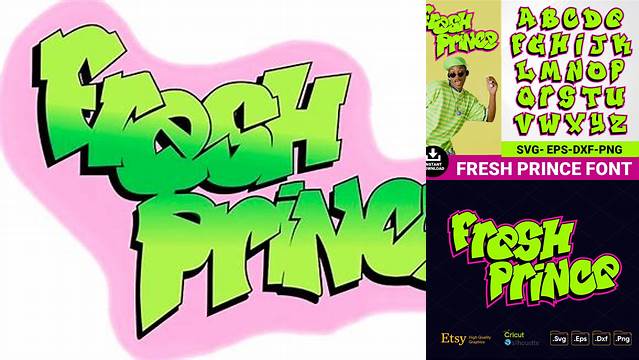
Fresh Prince Font: Free Options And Design Guide
Are you a fan of the iconic 90s sitcom, The Fresh Prince of Bel-Air? Or perhaps you're a design enthusiast searching for that perfect font to capture a retro, urban vibe? If so, you've likely stumbled upon the Fresh Prince font, a typeface that embodies the show's energetic and playful spirit. But what exactly is the Fresh Prince font, and how can you use it in your projects? Let's dive into the details, exploring its history, characteristics, and the best ways to incorporate it into your designs.
Understanding the Fresh Prince Font
When we talk about the Fresh Prince font, it's important to clarify that there isn't one single, officially licensed font used throughout the show's branding. Instead, the visual identity of The Fresh Prince of Bel-Air drew upon a combination of typographic styles, primarily leaning towards a bold, graffiti-inspired aesthetic. The opening credits, for instance, feature hand-drawn lettering and vibrant colors, evoking the street art culture of Philadelphia, where Will Smith's character originates. This hand-drawn feel is a key element that many designers aim to replicate when seeking a Fresh Prince-style font.
The challenge lies in finding a font that accurately captures this essence. While there's no exact match, several fonts come close, offering a similar visual impact. These fonts often share characteristics like: a bold weight, a slightly distressed or textured appearance, and a dynamic, almost handwritten quality. Some may incorporate elements of urban art, such as splatters, drips, or uneven lines, further enhancing the connection to the show's theme. To truly understand the impact of the Fresh Prince font, it's helpful to consider the context of the show itself. The Fresh Prince of Bel-Air was a groundbreaking sitcom that blended humor with social commentary, exploring themes of race, class, and family in a relatable way. The show's visual identity played a crucial role in conveying its message, using bold graphics and vibrant colors to create a sense of energy and optimism. The font, in particular, contributed to this overall aesthetic, projecting a sense of urban cool and youthful exuberance. So, when you're choosing a font to emulate the Fresh Prince style, you're not just selecting a typeface; you're tapping into a cultural legacy. You're channeling the spirit of a show that resonated with millions and continues to influence popular culture today. Therefore, it's essential to consider the message you want to convey and how the font can help you achieve that goal. Whether you're designing a logo, creating promotional materials, or simply adding a touch of retro flair to your project, the right Fresh Prince-inspired font can make all the difference. Remember, the key is to capture the essence of the show – its boldness, its energy, and its unmistakable urban vibe.
Key Characteristics of Fonts Similar to the Fresh Prince Style
When searching for fonts similar to the one used in The Fresh Prince of Bel-Air, several key characteristics stand out. These characteristics help to define the overall aesthetic and ensure that the font captures the essence of the show's visual identity. Let's explore these key features in more detail. First and foremost, boldness is a defining trait. The Fresh Prince font is not subtle or understated; it demands attention. Think thick, impactful strokes that command the viewer's gaze. This boldness reflects the show's confident and energetic tone, making it a crucial element to consider when choosing a font. The use of a bold font weight immediately conveys a sense of strength and presence, ensuring that your message stands out. Imagine the title sequence flashing across the screen – the font is not timid; it's assertive and full of life. This is the feeling you want to replicate. Secondly, a textured or distressed appearance is often present in fonts that evoke the Fresh Prince style. This texture can range from subtle graininess to more pronounced imperfections, giving the font a slightly weathered or hand-drawn feel. This characteristic is essential for capturing the urban, street art vibe associated with the show's opening credits and overall visual design. A perfectly clean and pristine font might feel too polished and lack the raw energy that the Fresh Prince font embodies. Think of graffiti art – it's rarely flawless; it has a certain roughness and authenticity. This is the same feeling that a textured font can bring to your design. Thirdly, a dynamic or handwritten quality is a key aspect to consider. While the show didn't use a purely handwritten font, the lettering in the opening credits has a fluid, almost calligraphic quality. Fonts that mimic this handwritten feel can add a touch of personality and authenticity to your design, making it feel less generic and more unique. Look for fonts with slightly irregular letterforms or a natural flow to the strokes. This can help to create a sense of movement and energy, which is crucial for capturing the spirit of The Fresh Prince of Bel-Air. The handwritten quality also adds a touch of warmth and approachability, making the font feel more personal and engaging. Beyond these core characteristics, some fonts may also incorporate urban art elements, such as splatters, drips, or uneven lines. These elements can further enhance the connection to the show's urban roots, adding a layer of visual interest and complexity. However, it's important to use these elements judiciously, as too many can make the font feel cluttered or overwhelming. The key is to strike a balance between authenticity and readability. In summary, when searching for fonts similar to the Fresh Prince style, focus on boldness, texture, a dynamic quality, and potentially some urban art elements. By considering these characteristics, you can find a font that effectively captures the essence of the show and adds a touch of retro flair to your design projects.
Where to Find Fresh Prince-Inspired Fonts
Finding the perfect font to capture the Fresh Prince vibe can feel like a quest, but fear not! There are numerous resources available, both online and offline, that can help you track down that ideal typeface. Let's explore some of the most popular and effective avenues for discovering Fresh Prince-inspired fonts. One of the most accessible and widely used resources is online font marketplaces. Websites like DaFont, FontSpace, MyFonts, and Adobe Fonts offer vast libraries of fonts, including many that fit the Fresh Prince aesthetic. These platforms allow you to search by keywords (such as "bold", "urban", "graffiti", or "retro"), filter by style (e.g., script, display, sans-serif), and even preview the fonts with your own text. The ability to preview is particularly helpful, as it allows you to see how the font will look in context before you commit to downloading or purchasing it. DaFont and FontSpace are excellent resources for free fonts, while MyFonts and Adobe Fonts tend to offer a wider selection of premium options. When browsing these marketplaces, it's helpful to keep the key characteristics of the Fresh Prince font in mind – boldness, texture, and a dynamic quality. Look for fonts that embody these traits, and don't be afraid to experiment with different options until you find the perfect fit. Another valuable resource is design blogs and articles. Many graphic design blogs regularly feature font roundups and recommendations, often highlighting typefaces that are suitable for specific projects or styles. Searching for articles related to retro fonts, urban fonts, or fonts similar to graffiti can lead you to some hidden gems. These blogs often provide detailed descriptions of the fonts, including their history, characteristics, and potential uses. They may also offer links to the font's download page or the designer's website. In addition to online resources, font identification tools can be incredibly useful. If you have an image of the Fresh Prince font (or a similar typeface) that you want to identify, you can use a font identification tool like WhatTheFont or Font Matcherator to analyze the image and suggest potential matches. These tools work by comparing the letterforms in the image to a database of fonts, providing a list of the most likely candidates. While these tools may not always be able to identify the exact font used in The Fresh Prince of Bel-Air, they can certainly help you narrow down your search and discover fonts that are in the same ballpark. Finally, don't underestimate the power of community forums and social media groups. Online communities dedicated to graphic design and typography can be excellent sources of information and recommendations. Asking for font suggestions in these groups can often yield insightful responses from experienced designers and typographers. Similarly, social media platforms like Twitter, Instagram, and Pinterest can be great for discovering new fonts and connecting with font designers. By exploring these various resources, you'll significantly increase your chances of finding the perfect Fresh Prince-inspired font for your project. Remember to be patient, explore different options, and don't be afraid to get creative! The world of typography is vast and exciting, and with a little effort, you can find the font that perfectly captures the essence of The Fresh Prince of Bel-Air.
Tips for Using the Fresh Prince Font in Your Designs
So, you've found a font that captures the Fresh Prince spirit – excellent! But simply having the font isn't enough; you need to know how to use it effectively in your designs. Just like Will Smith needed to adapt to the Bel-Air lifestyle, you need to adapt the font to your project for the best results. Let's explore some key tips for using Fresh Prince-inspired fonts to create visually compelling and impactful designs. First and foremost, consider the context of your project. The Fresh Prince font has a distinct personality – it's bold, energetic, and urban. This makes it ideal for projects that aim to convey a similar vibe, such as retro-themed designs, 90s nostalgia pieces, urban art projects, or anything related to hip-hop culture. However, it might not be the best choice for more formal or sophisticated designs, where a cleaner, more understated typeface would be more appropriate. Think about the message you want to communicate and whether the font aligns with that message. If you're designing a flyer for a 90s-themed party, a Fresh Prince-inspired font would be a perfect fit. But if you're creating a brochure for a law firm, it's probably best to choose a different typeface. Secondly, pair the font with complementary typefaces. Typography is all about creating visual harmony, and the way you pair fonts can significantly impact the overall look and feel of your design. When using a Fresh Prince-style font, it's often best to pair it with a simpler, more neutral typeface for body text or secondary elements. This helps to create a visual hierarchy and prevents the design from feeling too overwhelming. A classic sans-serif font like Helvetica or Arial can work well as a counterpoint to the boldness of the Fresh Prince font. Alternatively, a clean serif font like Times New Roman can add a touch of sophistication. The key is to choose a font that complements the Fresh Prince-inspired typeface without competing with it. Experiment with different combinations to see what works best for your project. Thirdly, pay attention to letter spacing and kerning. Letter spacing (the space between letters) and kerning (the space between specific pairs of letters) can significantly affect the readability and visual appeal of your typography. Fresh Prince-style fonts, with their bold and often textured appearance, can sometimes require adjustments to letter spacing and kerning to ensure optimal readability. Too little space can make the letters feel cramped and difficult to read, while too much space can make the text look disjointed. Experiment with different letter spacing and kerning settings until the text looks balanced and harmonious. Fourthly, use color strategically. Color plays a crucial role in visual communication, and the right color palette can enhance the impact of your Fresh Prince-inspired font. Think about the colors associated with the show – bright, bold hues like yellow, blue, and green. These colors can help to capture the show's energetic and playful spirit. However, it's important to use color strategically and avoid overwhelming the design. Consider using a limited color palette with a few key accent colors to create a cohesive and visually appealing look. Finally, don't be afraid to experiment. Design is a process of exploration and discovery, and the best way to learn is to experiment with different fonts, colors, and layouts. Try using the Fresh Prince font in various contexts and see what works best. Don't be afraid to push the boundaries and try something new. The key is to have fun and let your creativity guide you. By following these tips, you can effectively use Fresh Prince-inspired fonts to create designs that are both visually striking and true to the spirit of the show. Remember, the goal is to capture the essence of The Fresh Prince of Bel-Air – its boldness, its energy, and its undeniable urban flair.
In conclusion, the Fresh Prince font is more than just a typeface; it's a cultural icon that embodies the spirit of a beloved television show. While there's no single official font, several typefaces capture the essence of the Fresh Prince aesthetic, with their bold, textured, and dynamic qualities. Whether you're designing a retro-themed project, a 90s nostalgia piece, or simply want to add a touch of urban flair to your work, a Fresh Prince-inspired font can be a powerful tool. Remember to consider the context of your project, pair the font with complementary typefaces, pay attention to letter spacing and kerning, and use color strategically. And most importantly, don't be afraid to experiment and have fun! By following these guidelines, you can harness the power of the Fresh Prince font to create designs that are both visually compelling and culturally relevant. So go ahead, embrace the Fresh Prince vibe, and let your creativity flow! Just like Will Smith brought his unique style to Bel-Air, you can bring your own unique vision to your design projects with the help of the perfect Fresh Prince-inspired font.